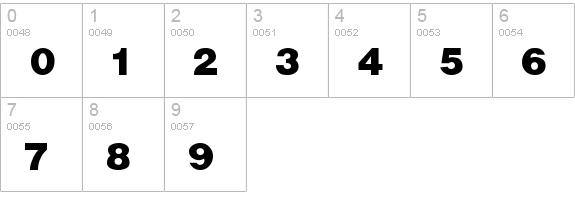
Ultra Regular Font Details
Ultra Regular is an extreme-weight, display variant in the Ultra typeface family \xE2\x80\x94 well suited to extreme display use where maximum visual weight is required.
Introducing Ultra Regular, a sleek and versatile font that effortlessly combines modernity with simplicity. Designed with utmost precision and attention to detail, this font is perfect for any project that requires a clean and professional look. Ultra Regular offers a wide range of weights and styles, allowing you to choose the perfect one to suit your creative needs. Whether you're designing a logo, creating marketing materials, or working on a web project, this font is sure to make a lasting impression. What sets Ultra Regular apart is not only its impeccable design, but also its accessibility. This font is freely available to download at FontsMarket.com, ensuring that anyone can enjoy its beauty and functionality. With its clean lines and balanced proportions, Ultra Regular is incredibly easy to read, making it ideal for both print and digital applications. Its versatility allows it to seamlessly adapt to any design concept, while its timeless appeal ensures that it will remain a classic choice for years to come. Add a touch of sophistication to your next project with Ultra Regular. Download it for free at FontsMarket.com and let your creativity soar.